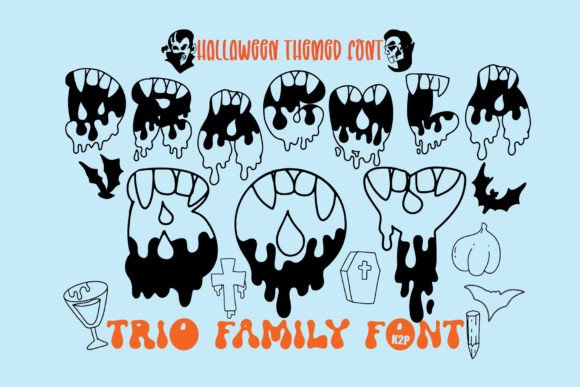
Journey into the captivating world of Dracula Boy Font, a monstrously delightful creation from the mind of KtwoP. This thick-lettered, spooky decorative font will cast a spell on your designs, making them stand out from the ordinary.
Unleash your creativity and let Dracula Boy Font take you on a thrilling adventure. Its bold and bewitching characters will add a touch of mystery and intrigue to your projects, leaving your audience spellbound.
Embrace the spirit of Halloween and let Dracula Boy Font haunt your designs. Its dark and enchanting presence will bring your spooky ideas to life, creating a visual feast for the eyes.
With Dracula Boy Font at your disposal, the possibilities are endless. Craft spine-chilling posters, eye-catching flyers, and wicked website designs that will leave your audience trembling with delight.
Dracula Boy Font is not just a font; it's a gateway to a world of magic and imagination. Let it transport you to a realm where creativity knows no bounds and where your designs take on a life of their own.